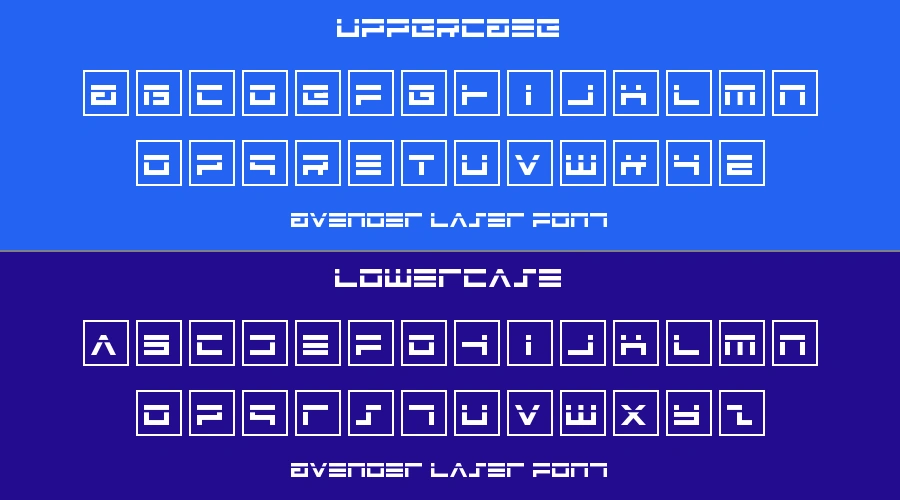
About Avenger Laser Font
Designed with precision, Avenger Laser Font merges contextual forms with textural richness in every character. This versatility makes it particularly effective for architectural plans, where craftsmanship and cultural authenticity directly impact communication quality. Each letterform demonstrates meticulous craftsmanship.
Technical excellence shines through elements like geometric precision and numerator/denominator, enhancing typographic versatility. In classic layouts settings, Avenger Laser Font proves its worth through superior brand recognition. The thoughtful execution of ear formation and design lineage ensures professional results.